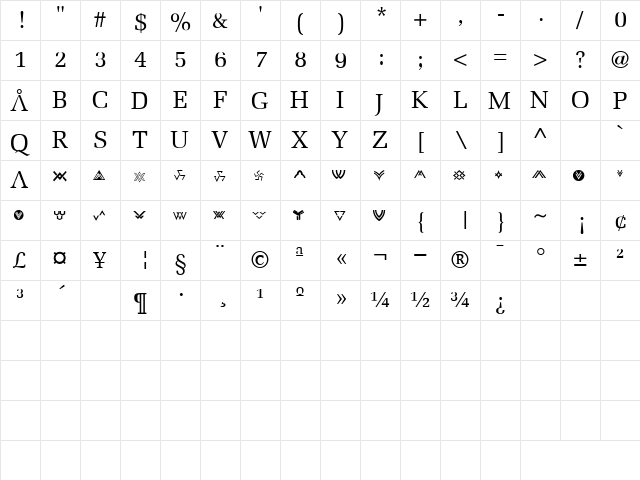
Stargate Regular Font Preview
Stargate Regular
Design Context for Stargate Typeface
Stargate offers clean, dependable letterforms without strong stylistic allegiance, making it a practical choice for designers who need flexibility.
Pro Tip: Use Stargate in both headline and body roles to test its range before committing to a single application.